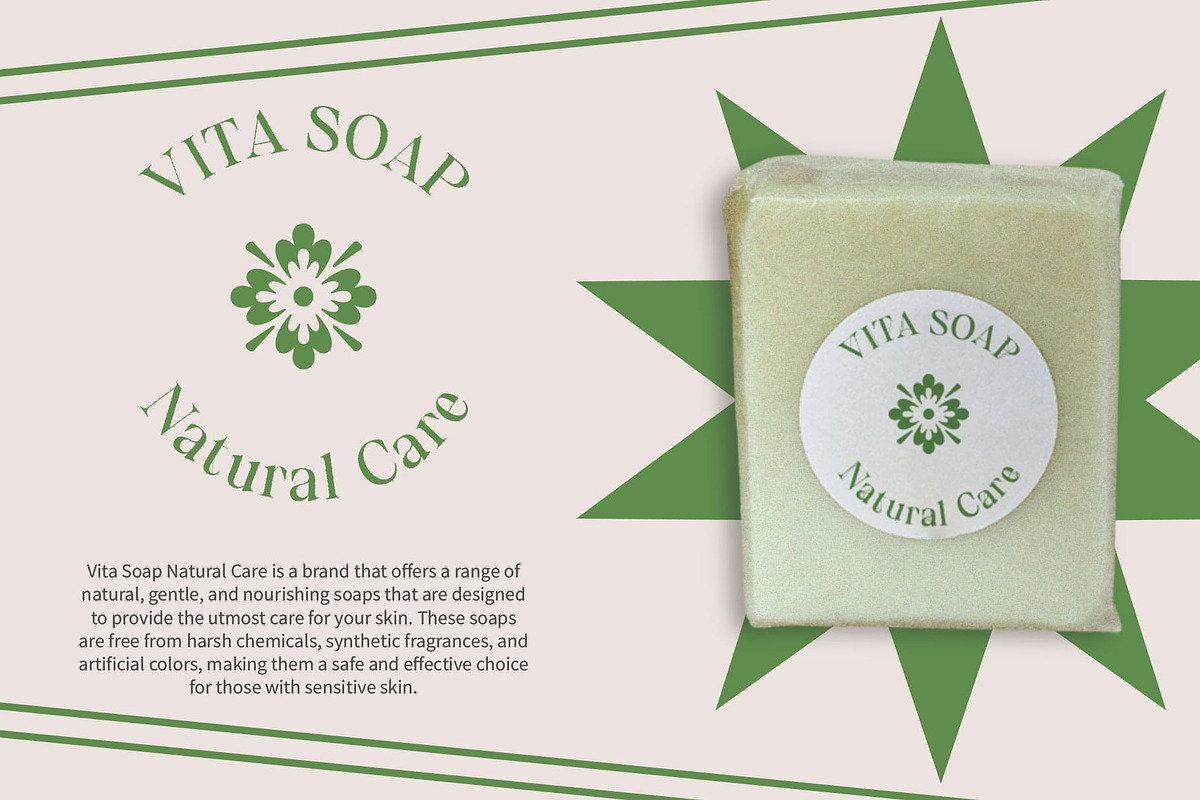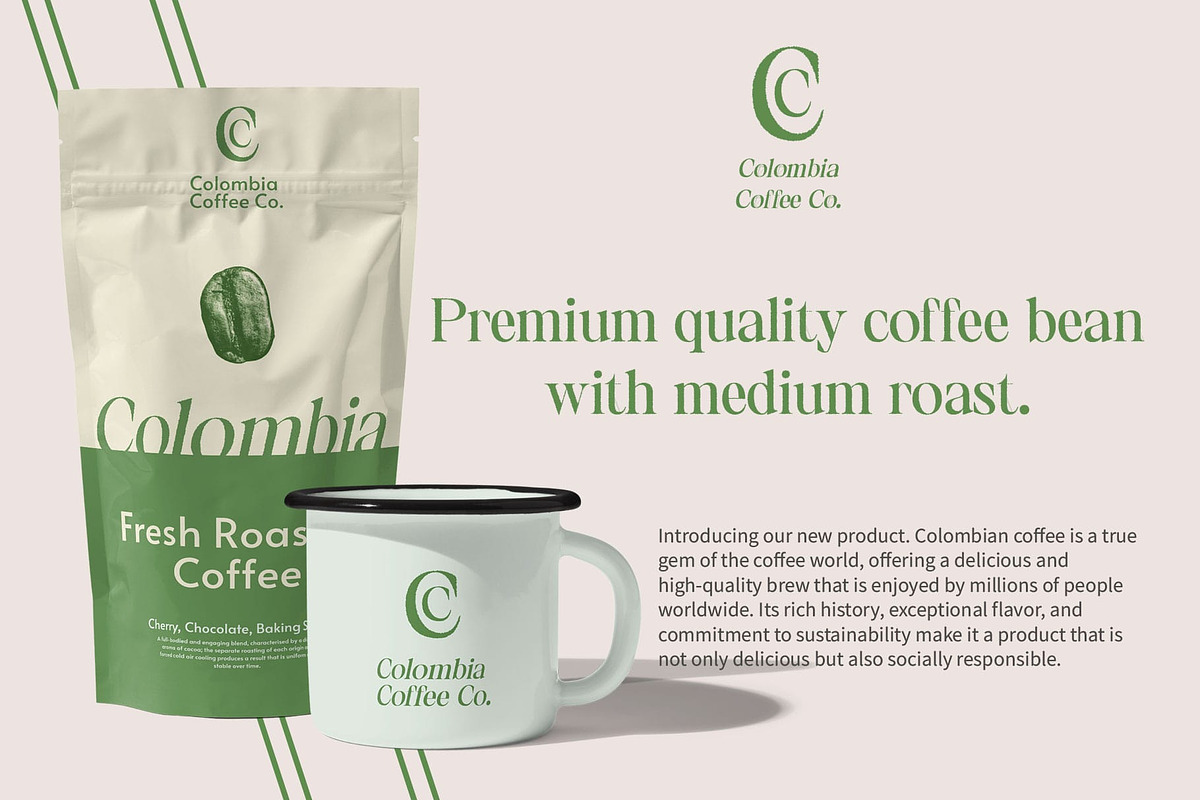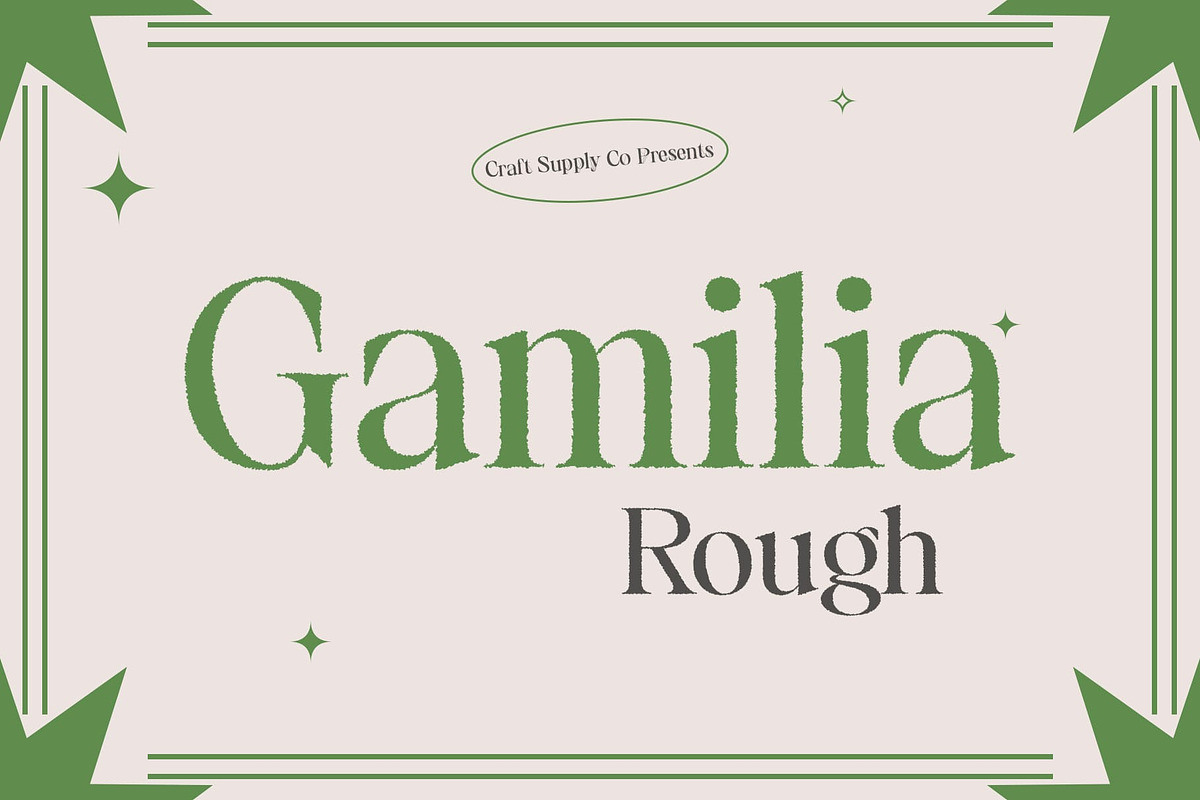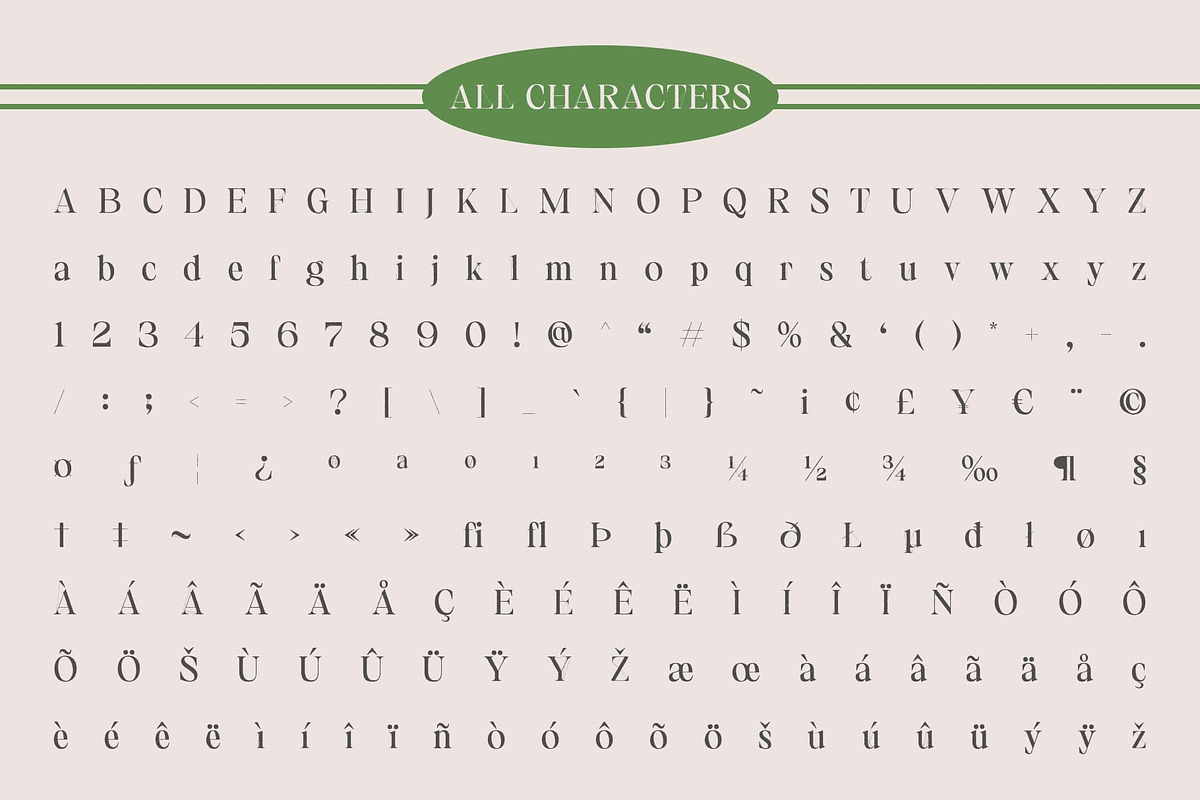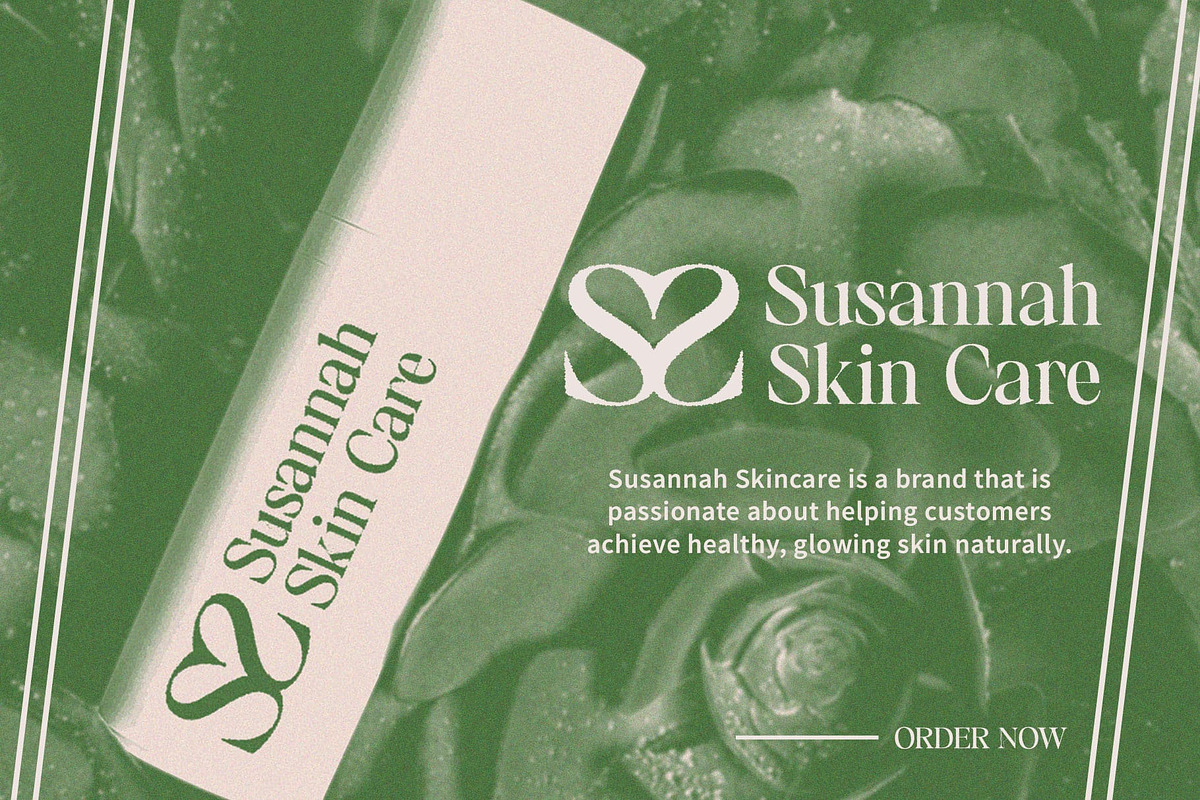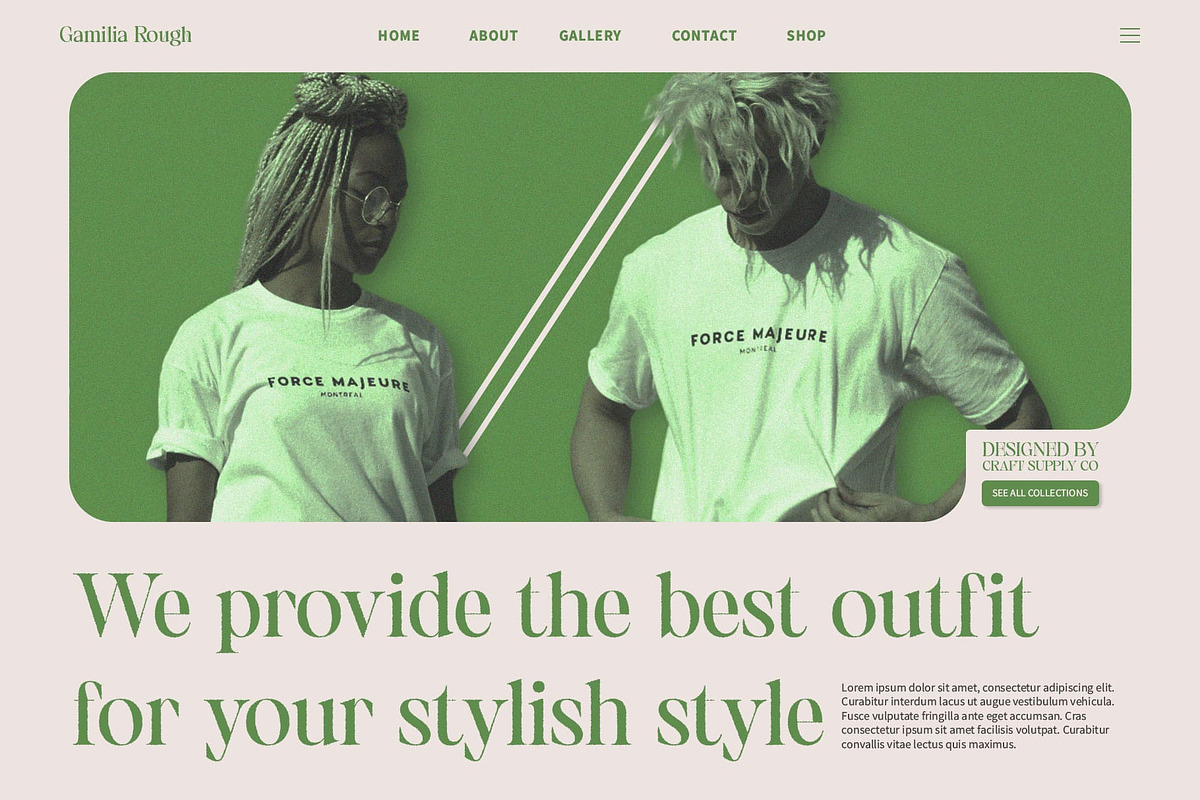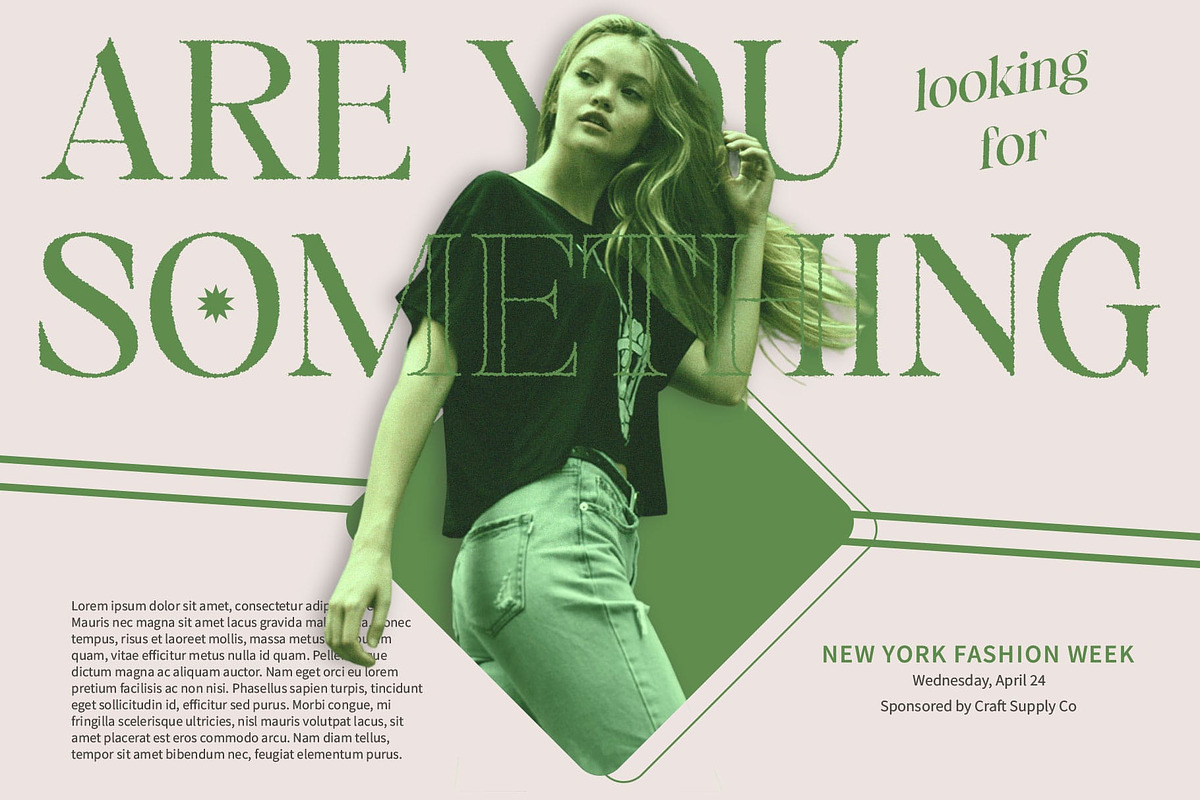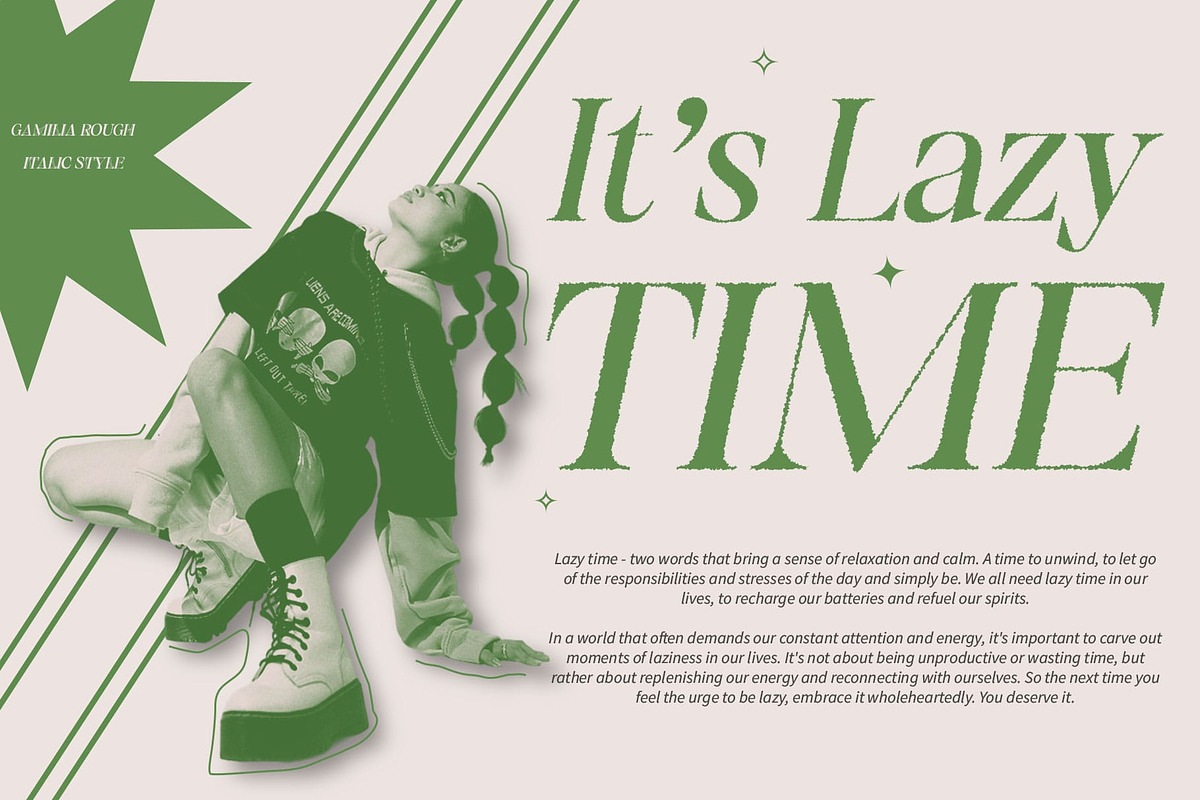
Gamilia Rough
Gamilia Rough: A Vintage Display Typeface
Vintage Charm with High Contrast Gamilia Rough exudes vintage charm with its high-contrast serif design, adding a touch of nostalgia to any project.
Rough Texture for Retro Appeal The rough texture of This font enhances its retro appeal, giving it an authentic vintage look reminiscent of old print materials.
Ideal for Vintage and Retro Designs Tailored for vintage and retro designs, This font is perfect for evoking a sense of nostalgia and authenticity in various projects.
Capture Retro Vibes with Gamilia Rough Embrace the retro aesthetic and capture the essence of vintage design with This font. Its high-contrast serif style and rough texture offer a unique blend of classic and contemporary appeal.
Vintage Elegance with a Rough Twist This font combines high-contrast serif design with a rough texture, creating a vintage display typeface perfect for retro-inspired projects. Whether you’re designing for a nostalgic brand or aiming for a retro look, This font adds an authentic vintage touch to any design.